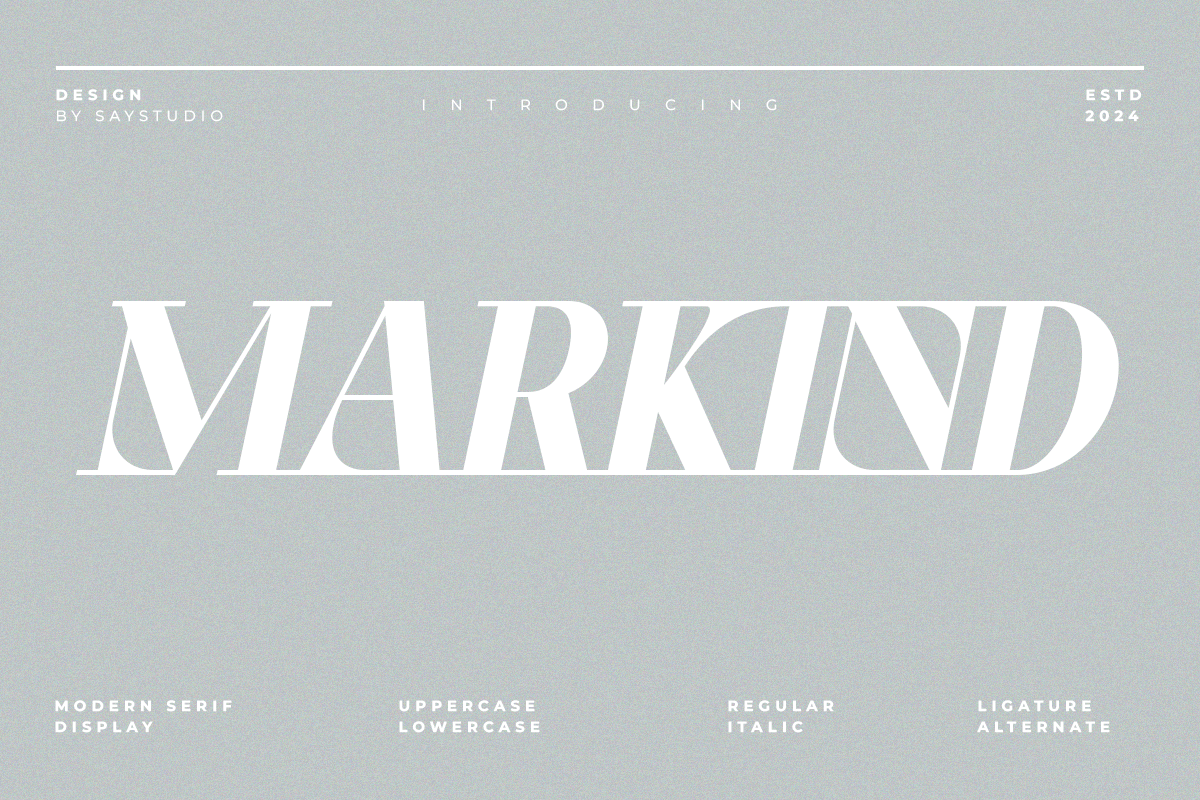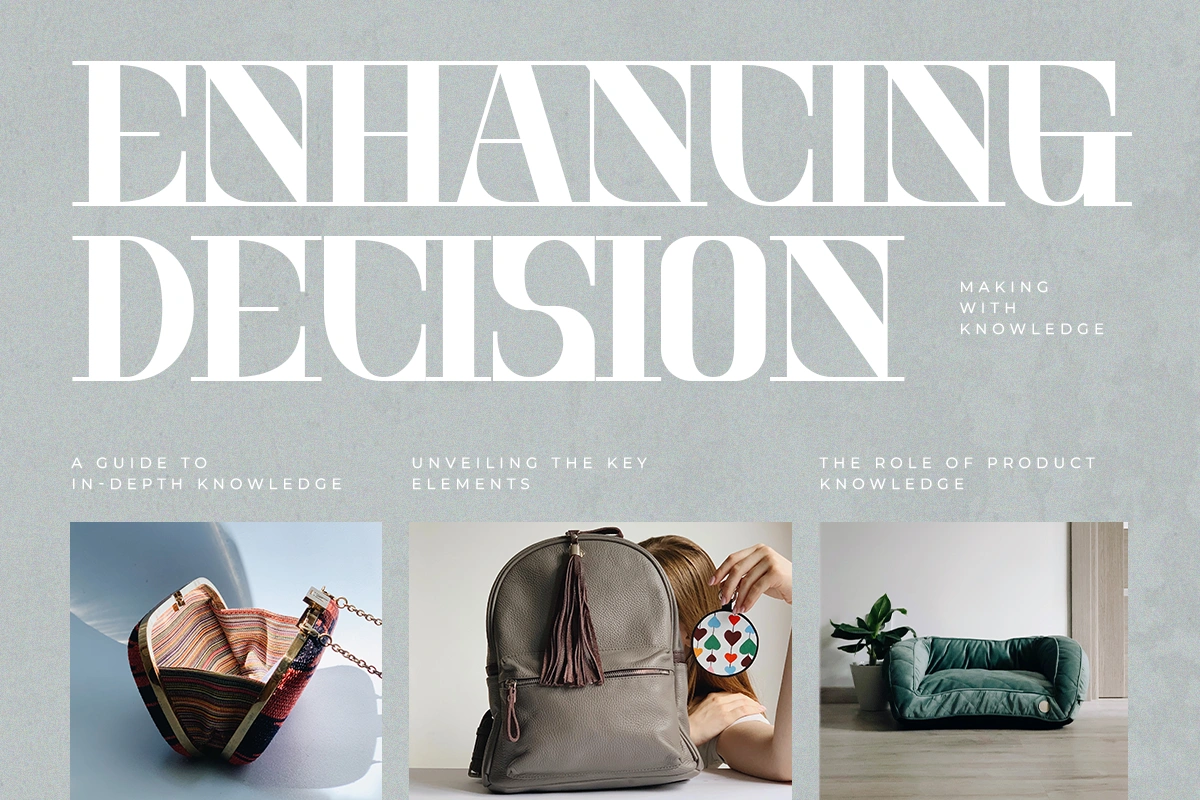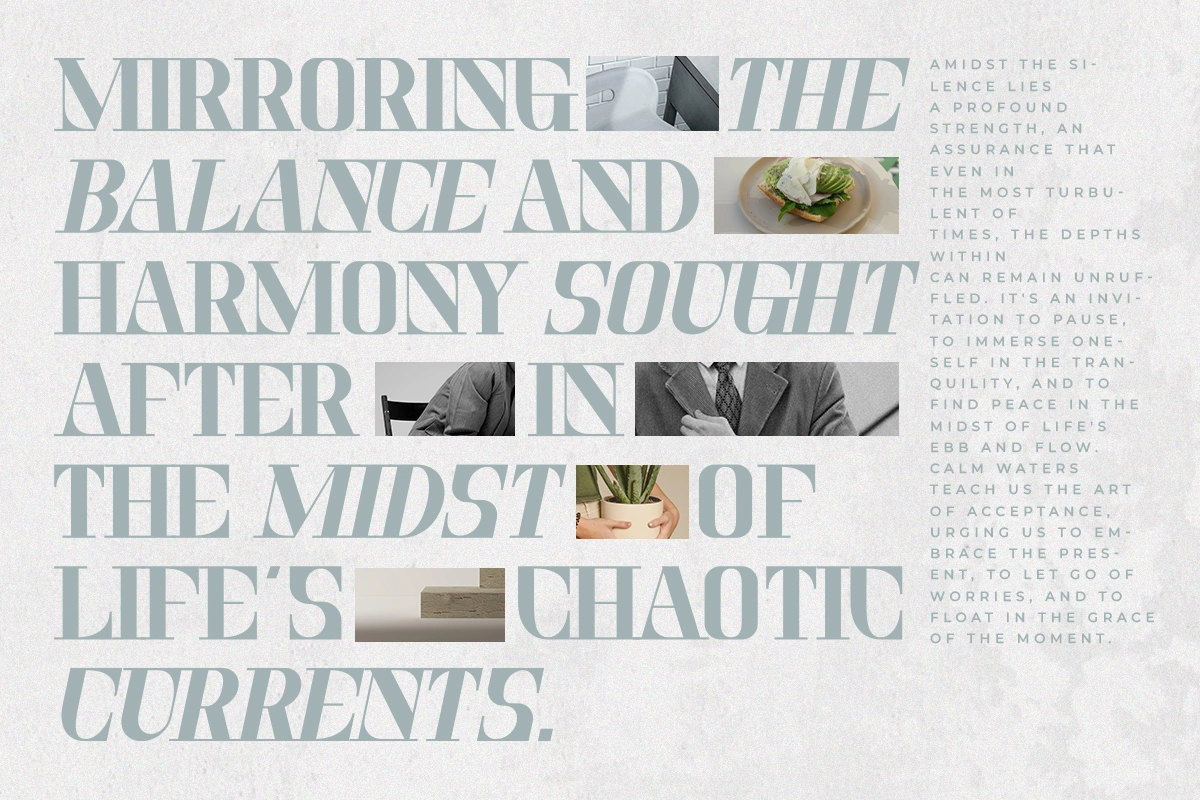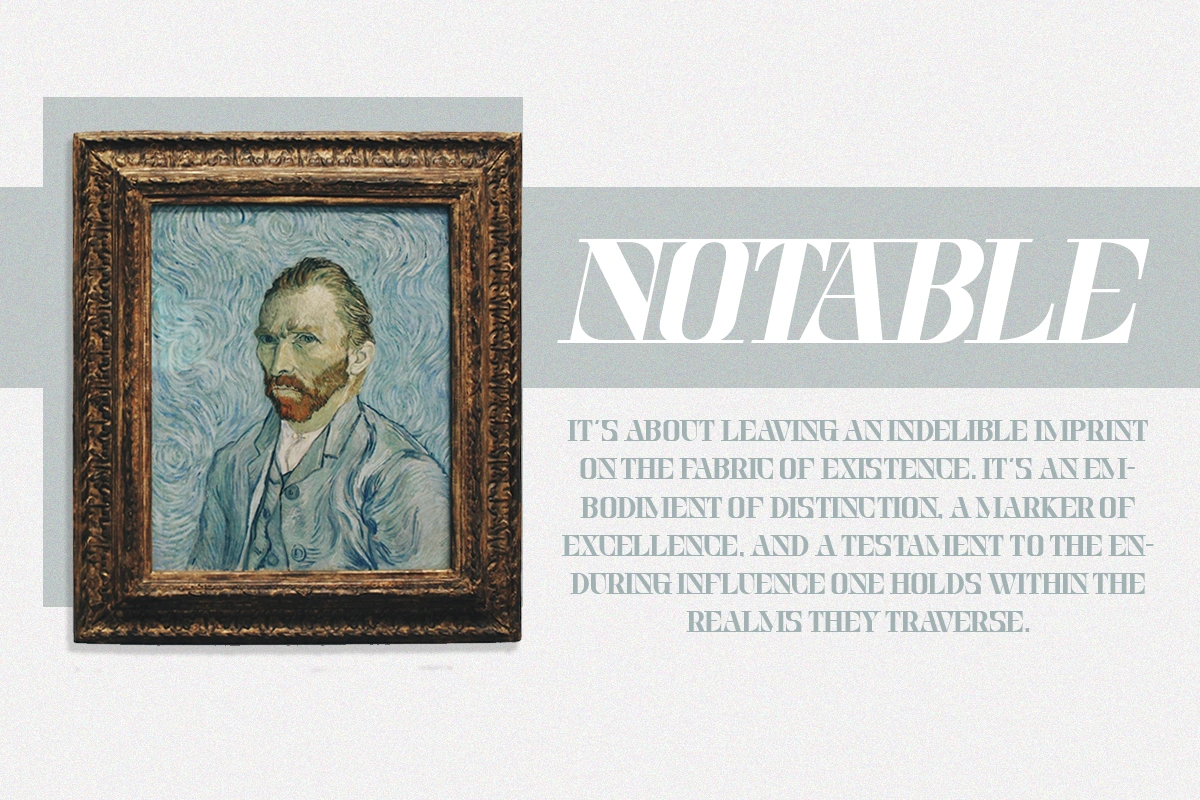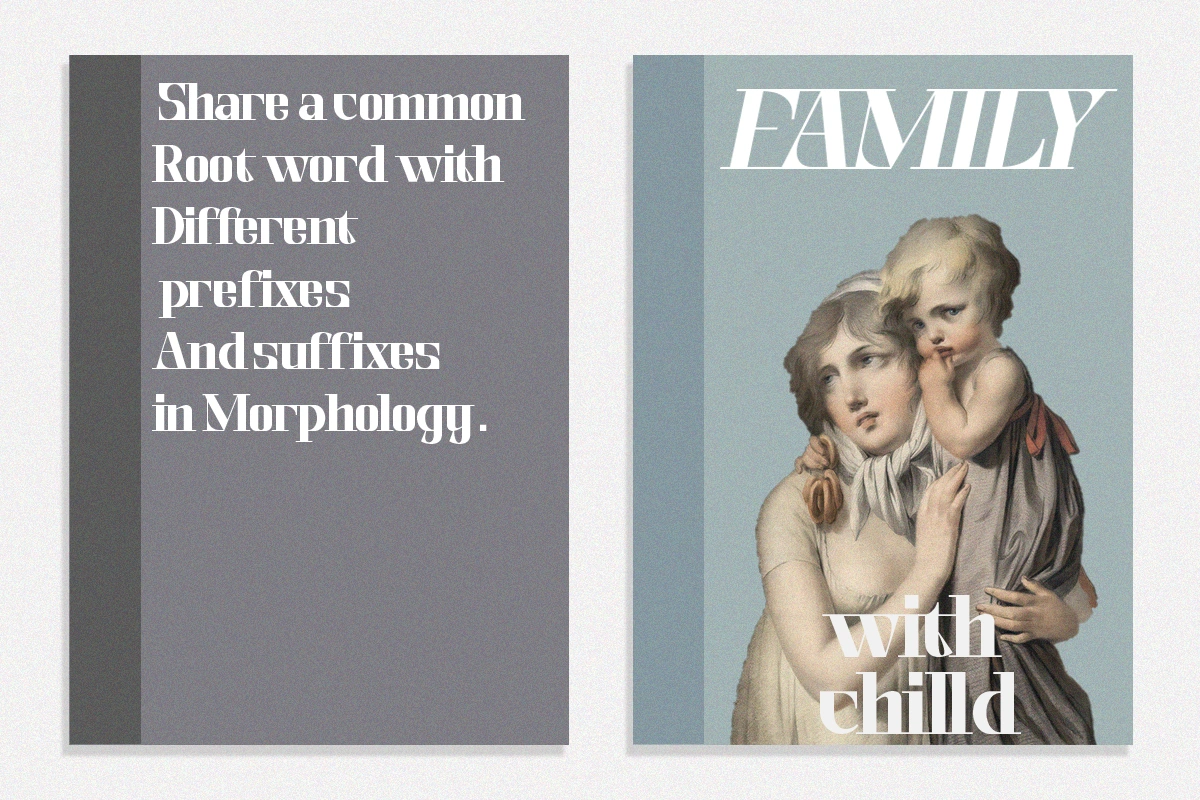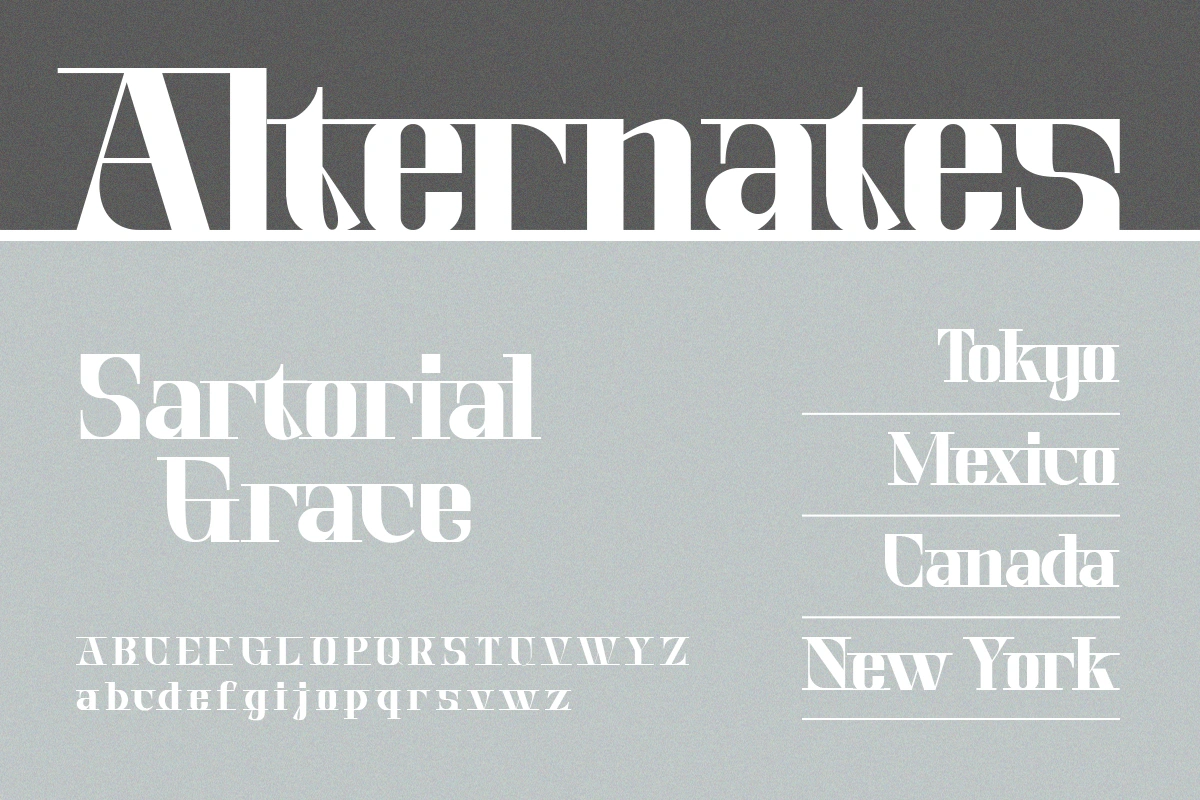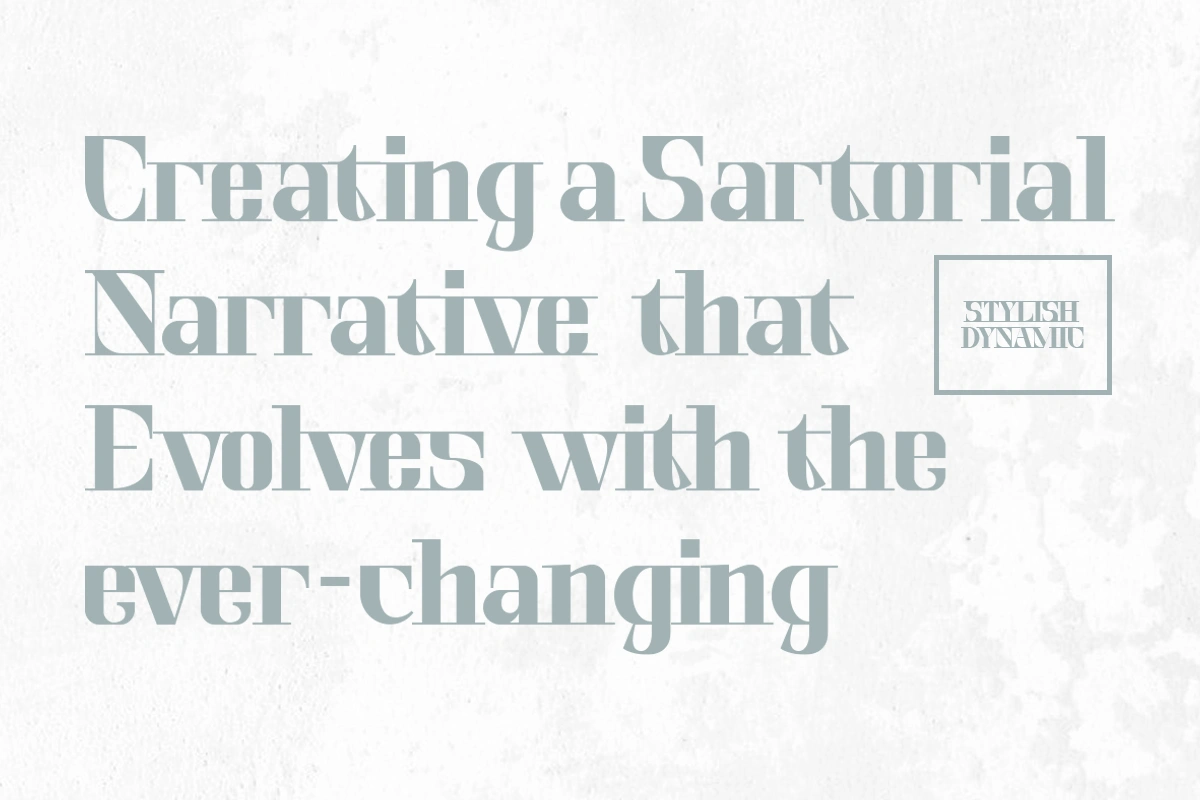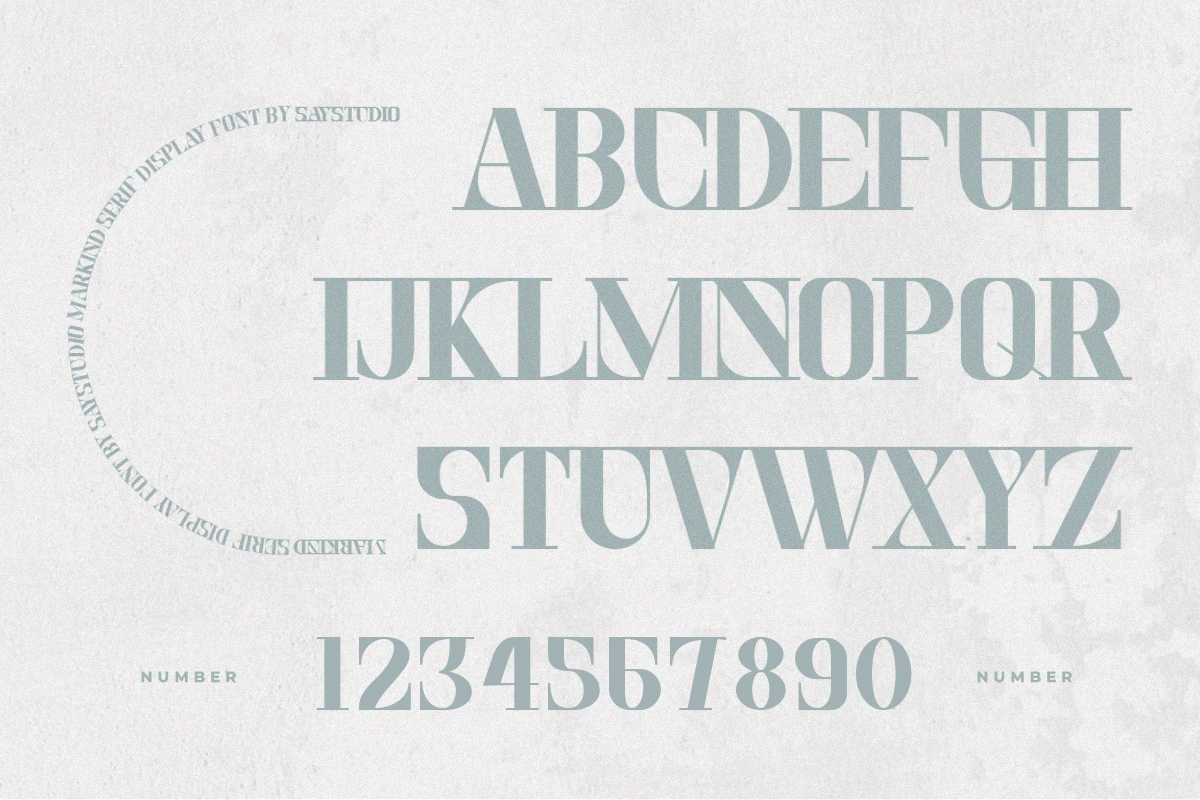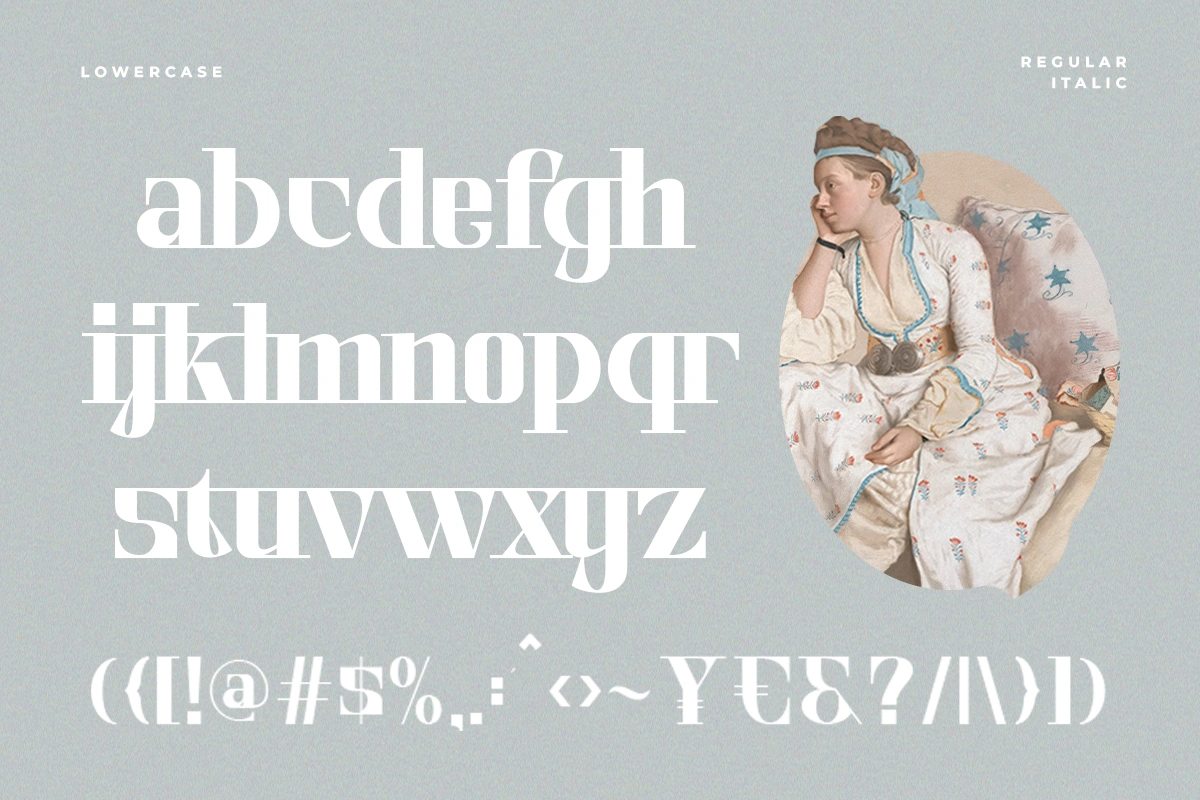
Markind – Modern Display Font
Markind, modern display serif
Markind is a modern display serif font with a unique letter style that can connect both the upperline and the underline, so it looks like it really maximizes the foot of the serif font. There are also alternatives so that if there are characters that don’t connect, they can be used. Markind works best as focused display text (think logos, headers, beauty quotes, calls to action, etc.).